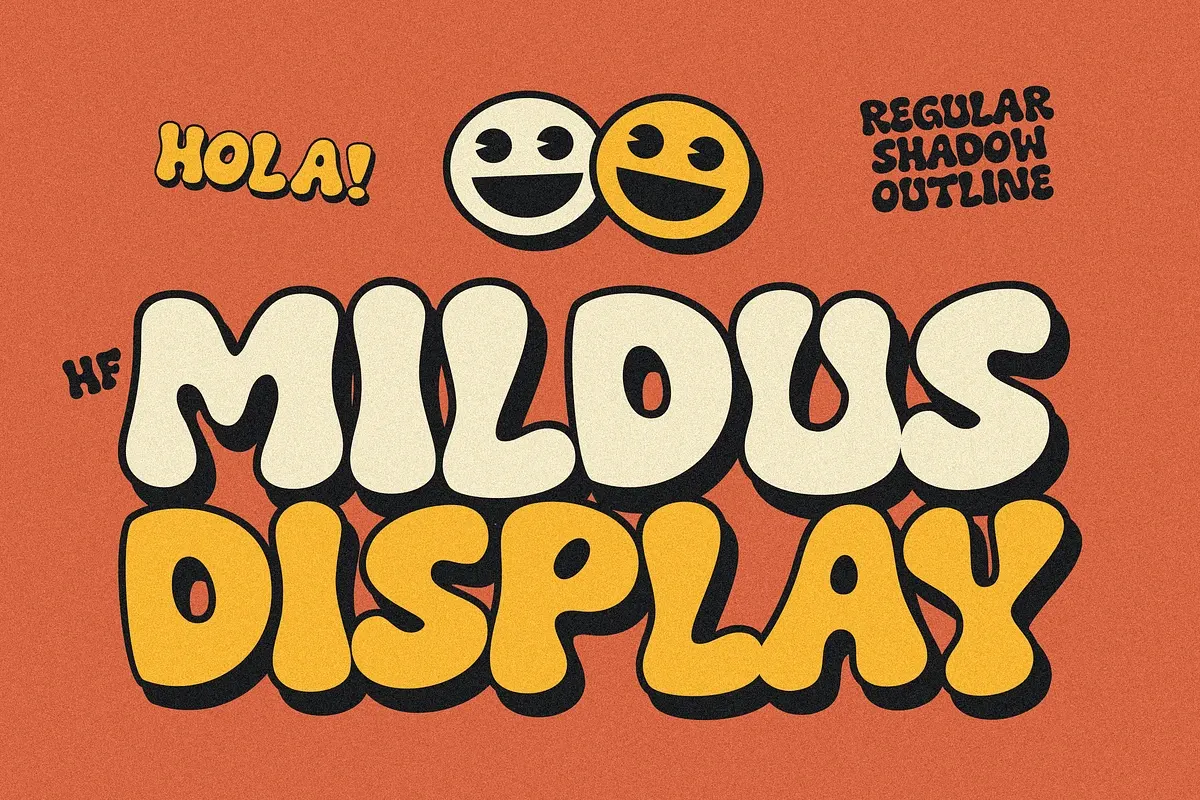
HF Mildus Bubbly Font Free Download is a playful and fun typeface that features rounded, bubbly letterforms. Its charming, lighthearted design makes it perfect for designs aimed at a younger audience, such as children's books, party invitations, product packaging, and social media graphics.
HF Mildus Bubbly Font Free Download adds a friendly, welcoming touch to your typography, making it ideal for creative projects that need a sense of joy and whimsy. Whether you're creating a logo, a fun event flyer, or branding for a playful product, this font will bring a cheerful and inviting style to your work.